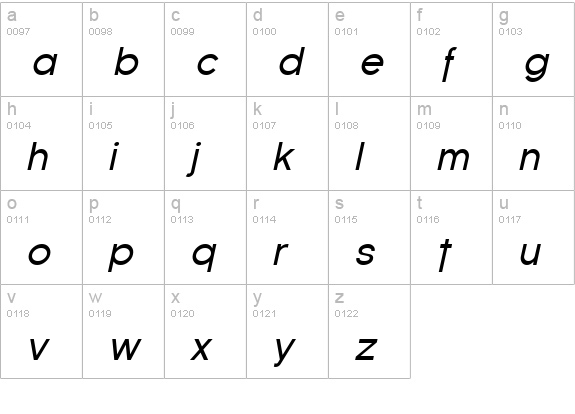
Florencesans Italic is a distinctive, italic variant in the Florencesans typeface family \xE2\x80\x94 well suited to design and typography projects.
Florencesans Italic font is a sleek and elegant typeface that exudes sophistication and modernity. Its slanted design adds a touch of flair to any text, making it perfect for adding a stylish twist to your projects. The italicized characters flow gracefully, creating a sense of movement and dynamism on the page. What's even better is that Florencesans Italic is available for free download at FontsMarket.com. This means you can easily access this beautiful font without any cost, making it a valuable addition to your font library. Whether you're working on a creative design project, crafting professional documents, or simply looking to elevate your typography game, Florencesans Italic offers versatility and charm that will surely make your text stand out. Download it today and add a touch of elegance to your designs!